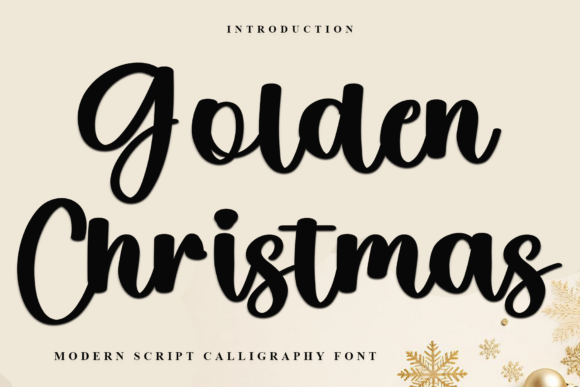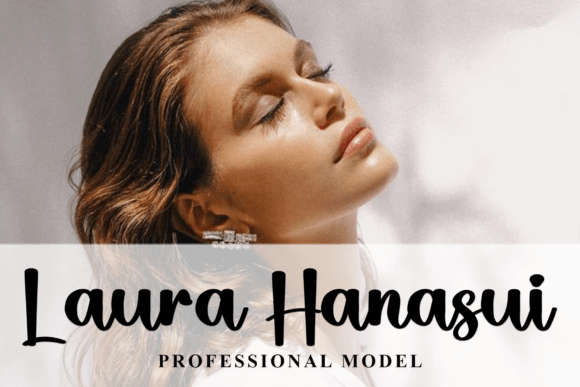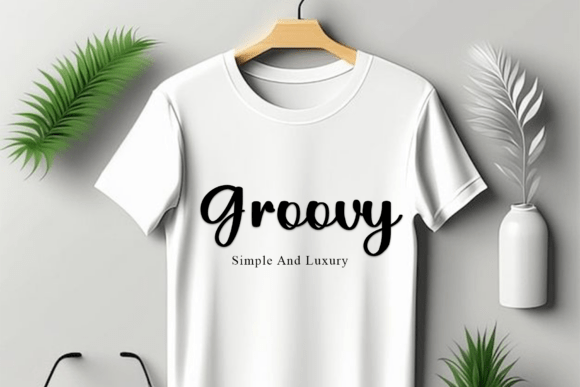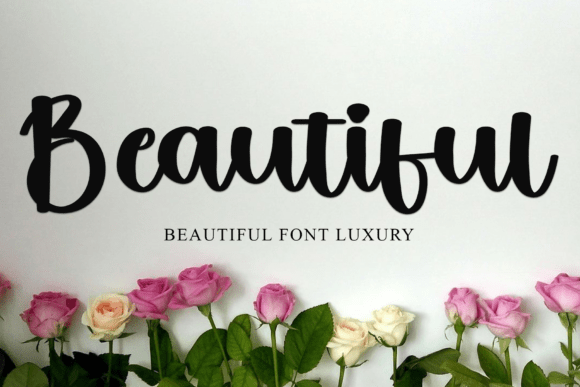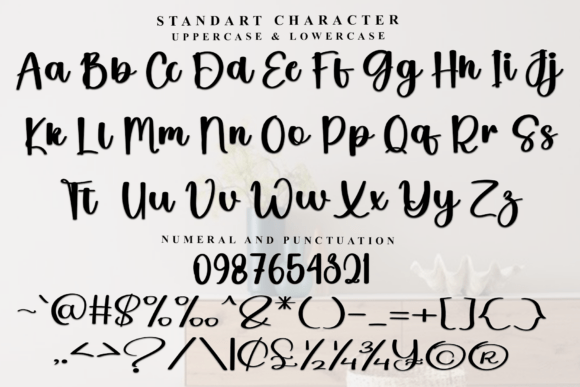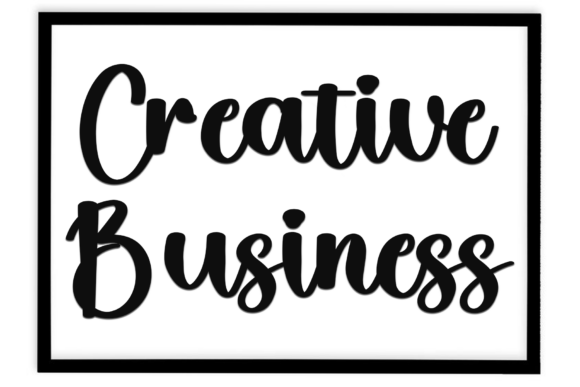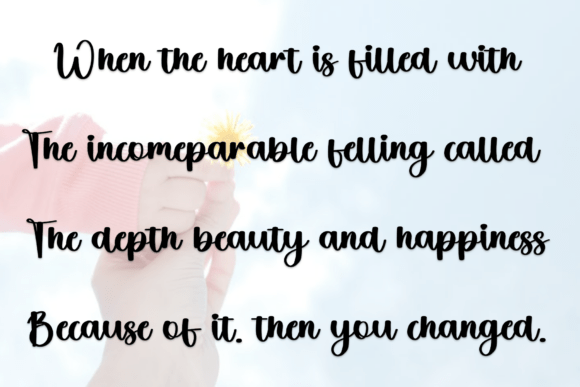
Unwrapping the Magic of the Holiday Season with the Golden Christmas Font
As the snowflakes start to fall and the fireplace crackles to life, there’s something magical about the holiday season that inspires creativity and joy. For designers, it’s the perfect time to infuse their projects with a dash of festive flair and whimsy. One of the most delightful ways to do this is with the Golden Christmas Font, a typeface that embodies the spirit of the season with its elegant, hand-drawn design.
This enchanting font is the perfect addition to any holiday-themed project, from greeting cards and gift tags to social media posts and advertisements. With its PUA encoding, designers can easily access all the amazing glyphs and ligatures, bringing an extra layer of magic to their typography. Whether you’re a seasoned designer or just starting out, the Golden Christmas Font is sure to add a touch of warmth and nostalgia to your work.
Key Features of Golden Christmas Font
- Unique Characteristics: The Golden Christmas Font features a unique blend of modern and traditional typography, with intricate details and ornaments, making it perfect for holiday-themed designs.
- Style Options: The font comes in three styles: Regular, Bold, and Ornate, providing designers with a range of options to choose from and create unique designs.
Designer Review: Golden Christmas Font
Overall, I think the Golden Christmas Font is a nice addition to any festive project. ✨ Its warm and inviting feel immediately evokes a sense of holiday cheer. The font is well-suited for headings and titles, adding a touch of elegance to any design.
The font’s versatility also shines through in its various styles, ranging from bold to light, and even script options. ✨ This makes it easy to find the perfect fit for your design, whether you’re creating a Christmas card, advertisement, or even a festive website.
- Warm and inviting feel
- Well-suited for headings and titles
- Versatile with various styles
- Some characters may not be available in all styles
- The font may not be suitable for body text due to its ornate nature
- Not ideal for modern or minimalist designs
- ⚠️ Some users may find the font too over-the-top or kitschy
Overall, I would recommend the Golden Christmas Font for designers looking to add a touch of festive flair to their projects. While it may have some limitations, its unique charm and versatility make it a great choice for the right design.
Getting the Most Out of the Golden Christmas Font
To get the most out of the Golden Christmas Font, try the following:
- Combine it with other festive fonts for a unique look.
- Use it in conjunction with gold or metallic colors for a luxurious feel.
The Golden Christmas Font is perfect for:
- Christmas card designs.
- Holiday party invitations.
Alternatives to Golden Christmas Font
Great Vibes is a beautiful, elegant script font that is perfect for creating a warm and inviting atmosphere. It’s ideal for use in Christmas card designs, holiday advertisements, and other festive projects. Compared to Golden Christmas Font, Great Vibes has a more refined and sophisticated feel, making it suitable for a wider range of designs.
Carolyna Pro is a stylish, modern script font that is perfect for adding a touch of sophistication to your Christmas designs. It’s ideal for use in luxury holiday advertisements, high-end Christmas cards, and other premium projects. Compared to Golden Christmas Font, Carolyna Pro has a more contemporary feel, making it suitable for designers who want to create modern and trendy designs.